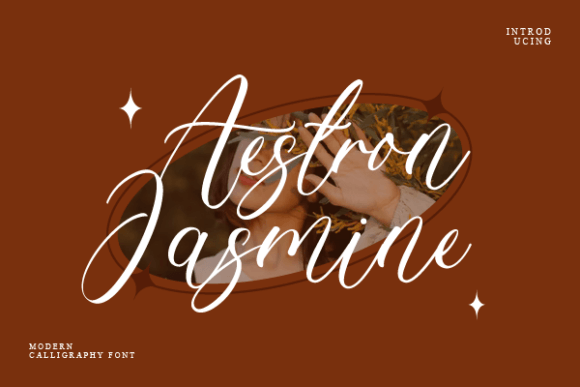
Dive into the world of Aestron Jasmine, a captivating script font family that exudes elegance and charm. Created by the talented fiqiart, this font is a true masterpiece designed to add a touch of sophistication to your creative projects. With its flowing lines and delicate curves, Aestron Jasmine captures the beauty of handwritten art and transforms it into a digital masterpiece.
Unleash your creativity and let Aestron Jasmine take center stage in your designs. Whether you're crafting stunning wall displays, designing heartfelt wedding invitations, or creating eye-catching logos for your social media posts, this font will elevate your work to new heights. Its versatility knows no bounds, making it the perfect choice for advertisements, product packaging, and product designs.
Experience the allure of Aestron Jasmine as it graces your labels, photographs, and watermarks with its enchanting presence. Its timeless beauty adds a touch of class to invitations and stationery, making them stand out from the ordinary. Whether you're working on personal projects or professional endeavors, this font will elevate your designs, leaving a lasting impression on your audience.
Embrace the artistry of Aestron Jasmine and let your imagination soar. Its intricate details and graceful strokes bring a sense of warmth and personality to your creations. Perfect for handwritten logos, quotes, and any project that demands a personal touch, this font will transform your words into works of art.
With Aestron Jasmine in your design arsenal, you'll discover a world of endless possibilities. Its versatility and charm will captivate your audience, leaving them in awe of your creations. So, embark on your creative journey with Aestron Jasmine and let your designs shine with elegance and grace.